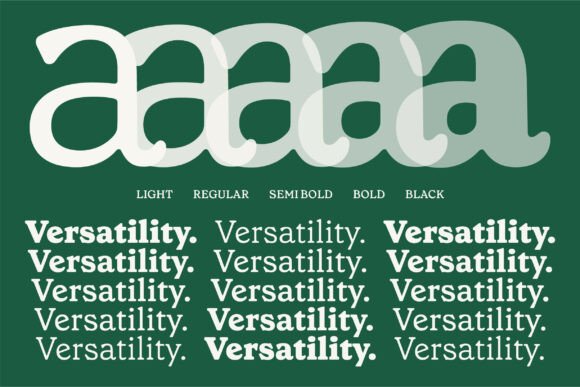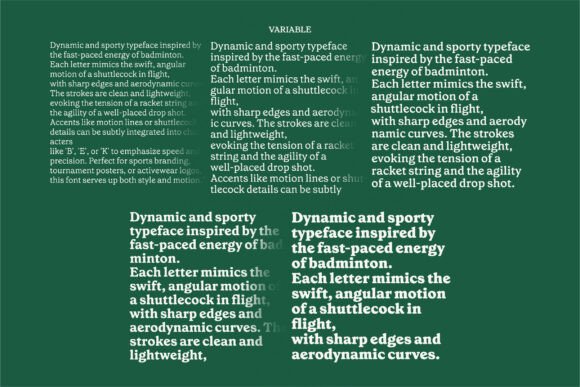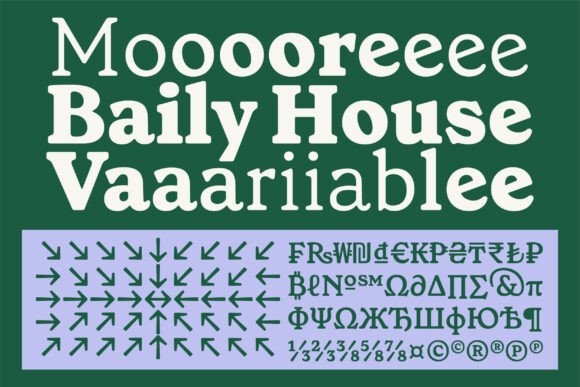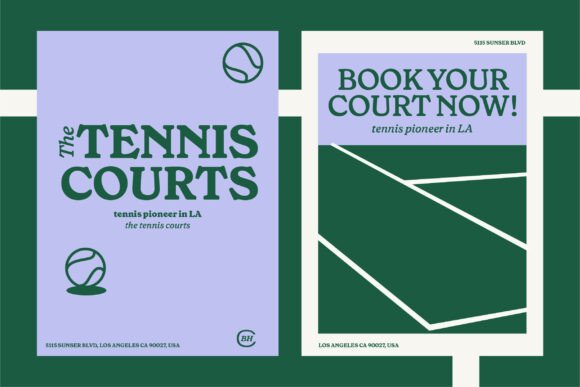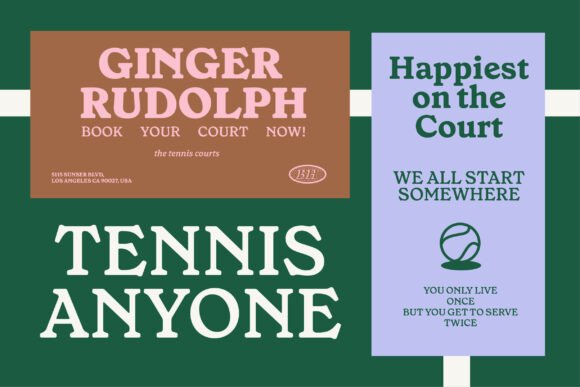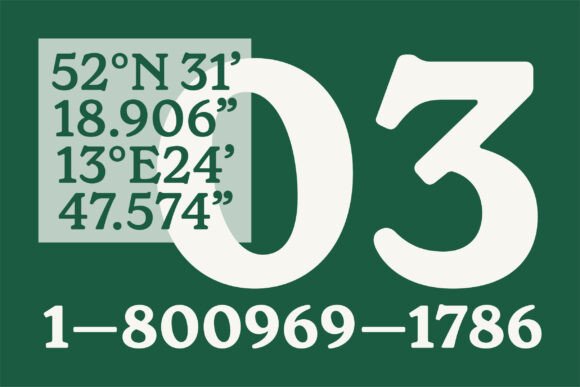
Introduction to Baileyhouse Font
A dynamic and sporty typeface inspired by the fast-paced energy of tennis.
Each letter mimics the swift, angular motion of a shuttlecock in flight, with a sharp edge and aerodynamic curve The strokes are clean and lightweight, evoking the tension of a racket string and the agility of a well-placed drop shot.
Key Features of Baileyhouse Font